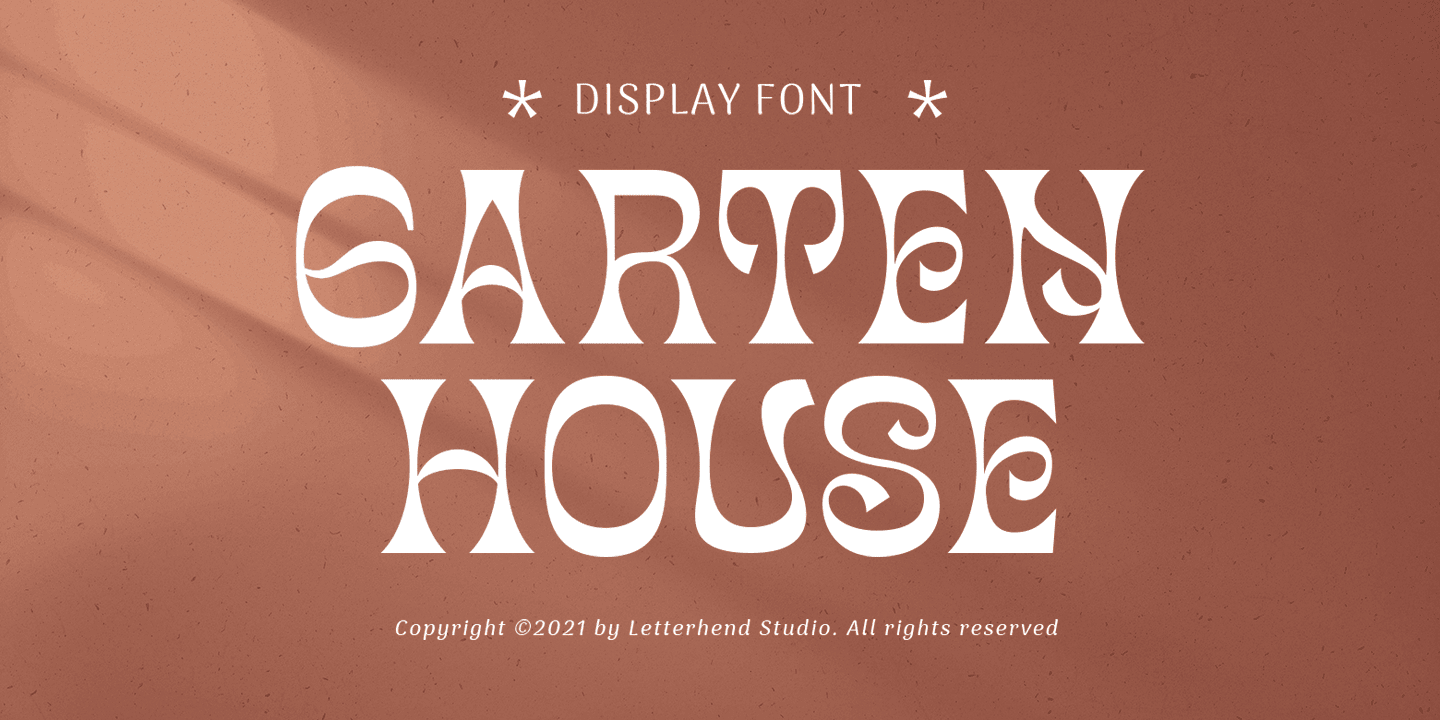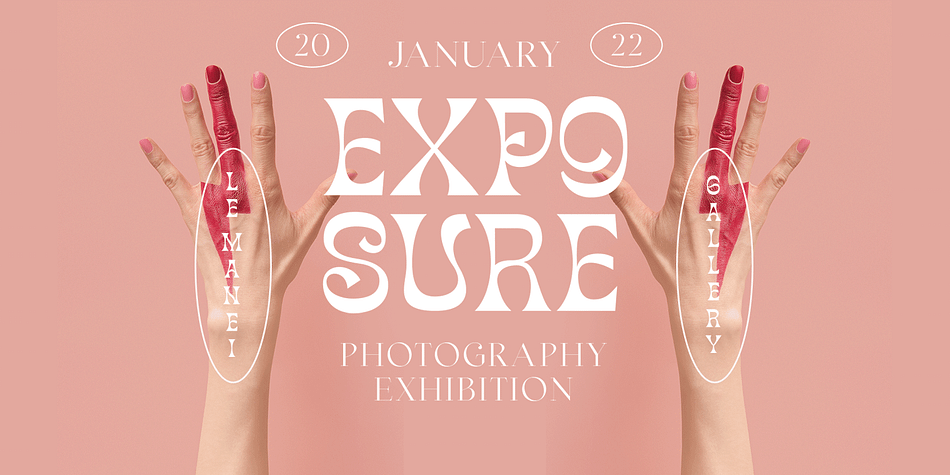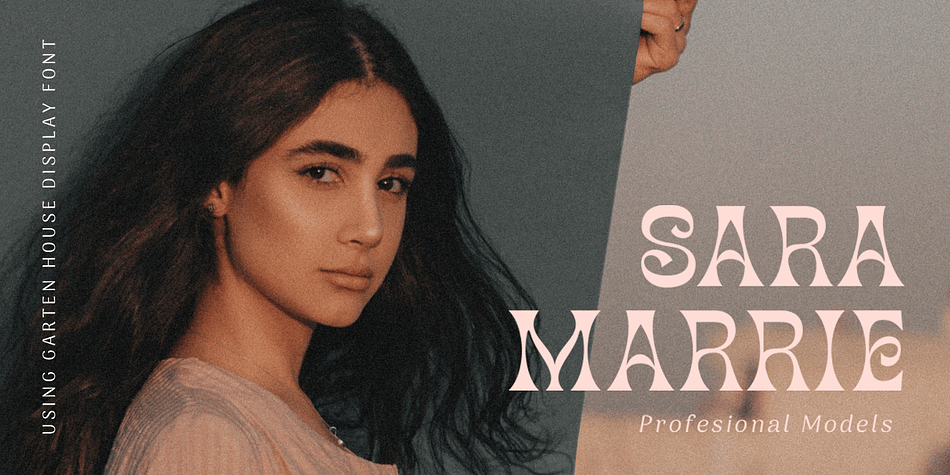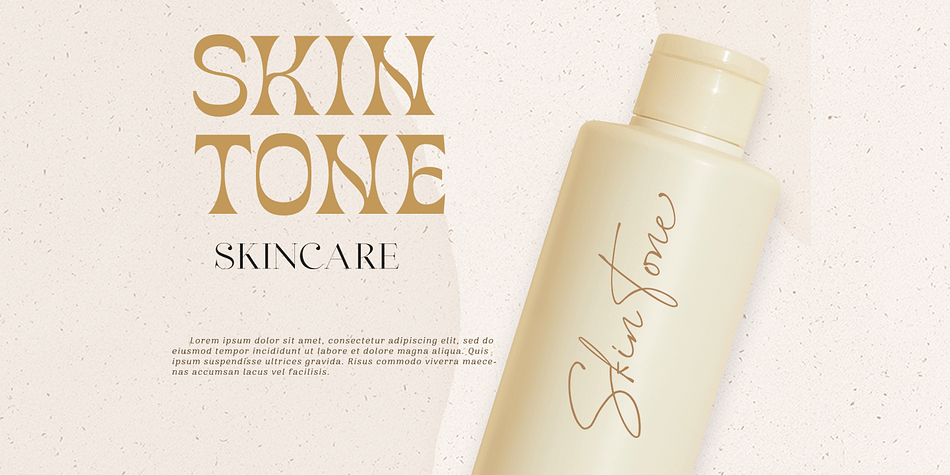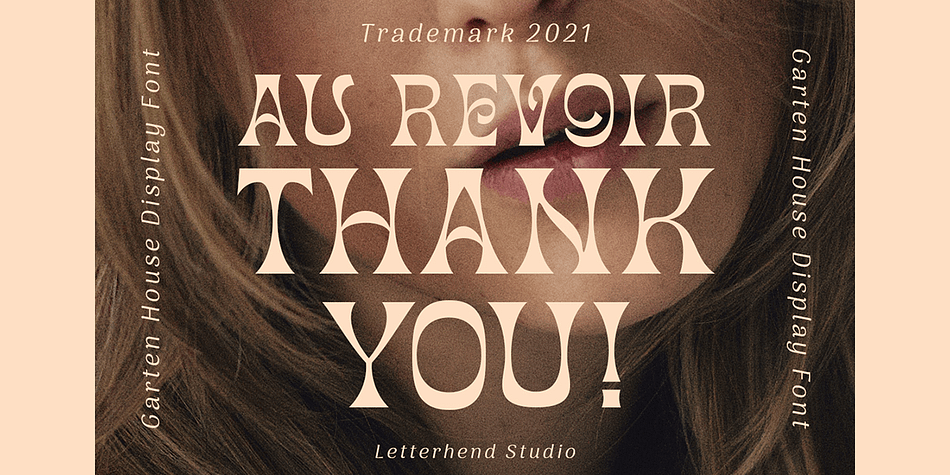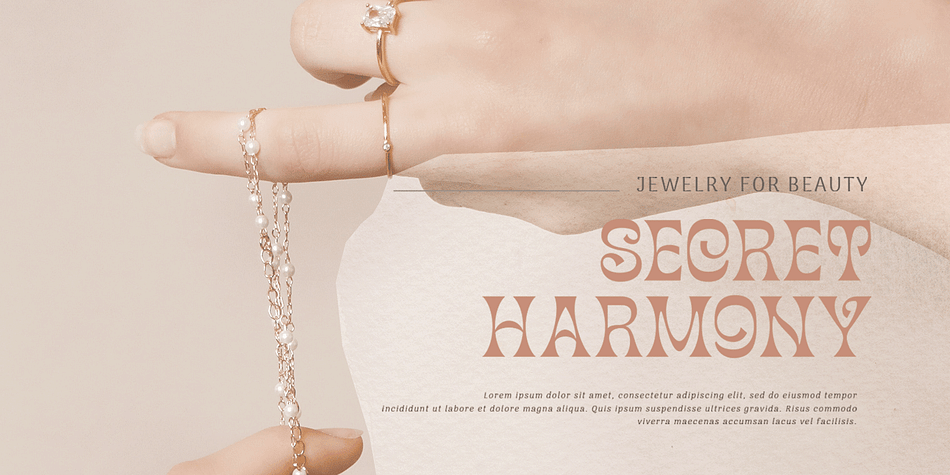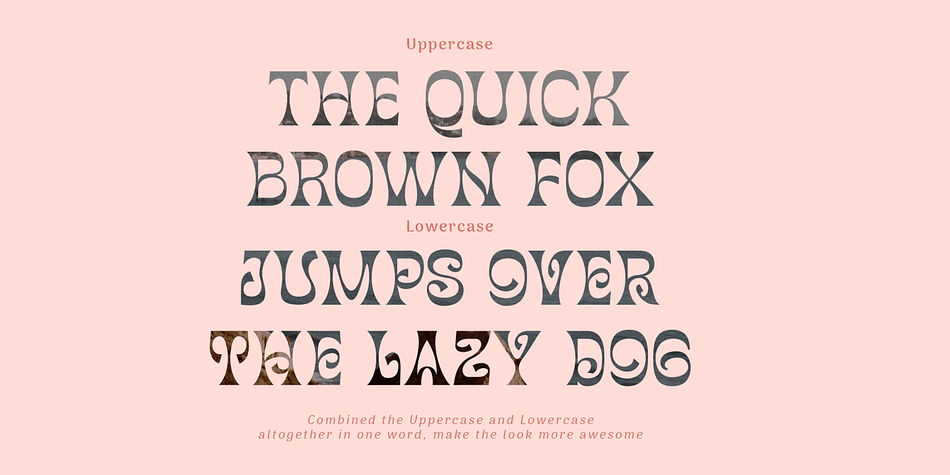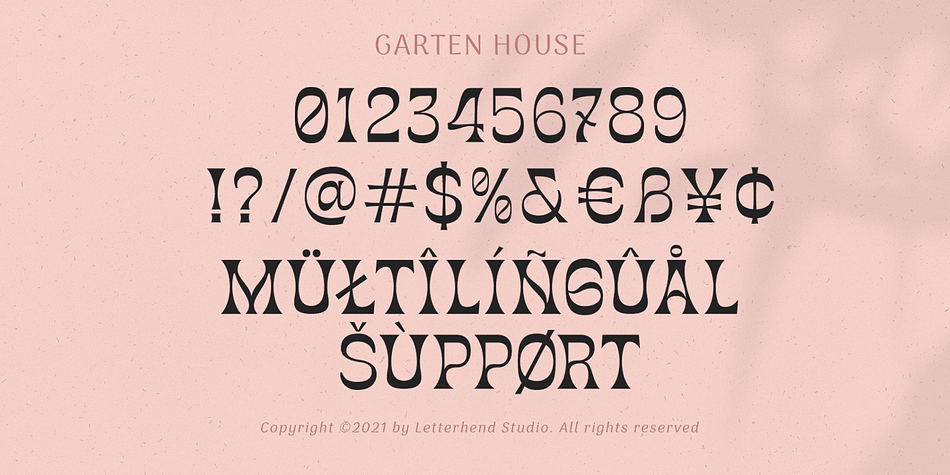
Designed by Hendry Juanda, Garten House is an art nouveau, display and hand display font family published by Letterhend Studio.
Garten House is a sophisticated high contrast display serif typeface. The ligature character makes this typeface unique and stands out rather than the regular serif font. Very suitable for logo, headline, tittle, and the other various formal forms such as invitations, labels, logos, magazines, books, greeting / wedding cards, packaging, fashion, make up, stationery, novels, labels or any type of advertising purpose.